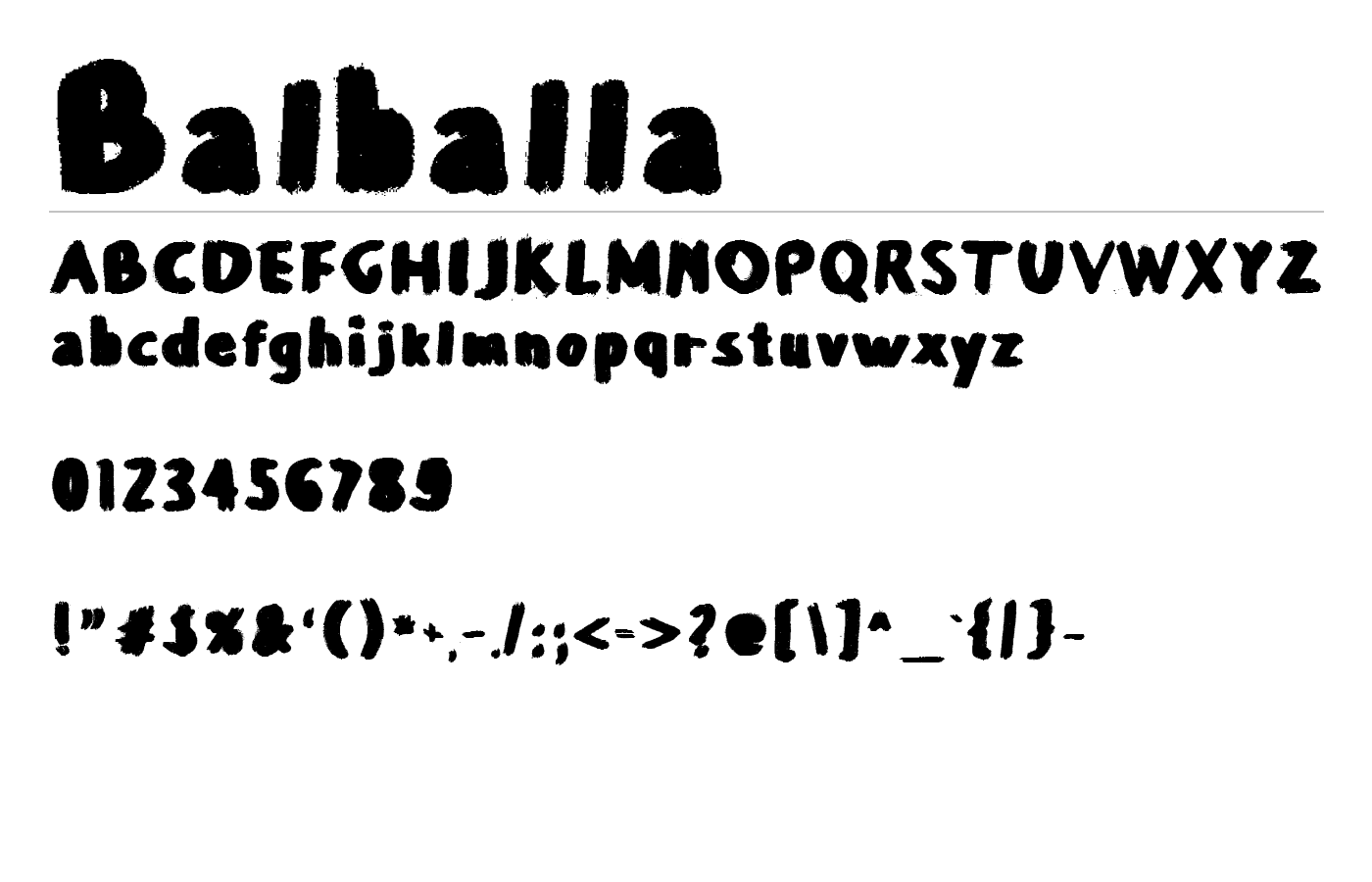
Balballa is a bold, playful sans serif font with a rough, textured appearance that gives it a hand-painted, organic feel. Its thick, uneven strokes and rounded forms create a friendly and casual vibe, making it ideal for projects aiming for a fun, artistic, or informal look. This font works well in headlines, logos, and creative branding where a unique, eye-catching personality is desired.
Balballa Font
About Balballa Font